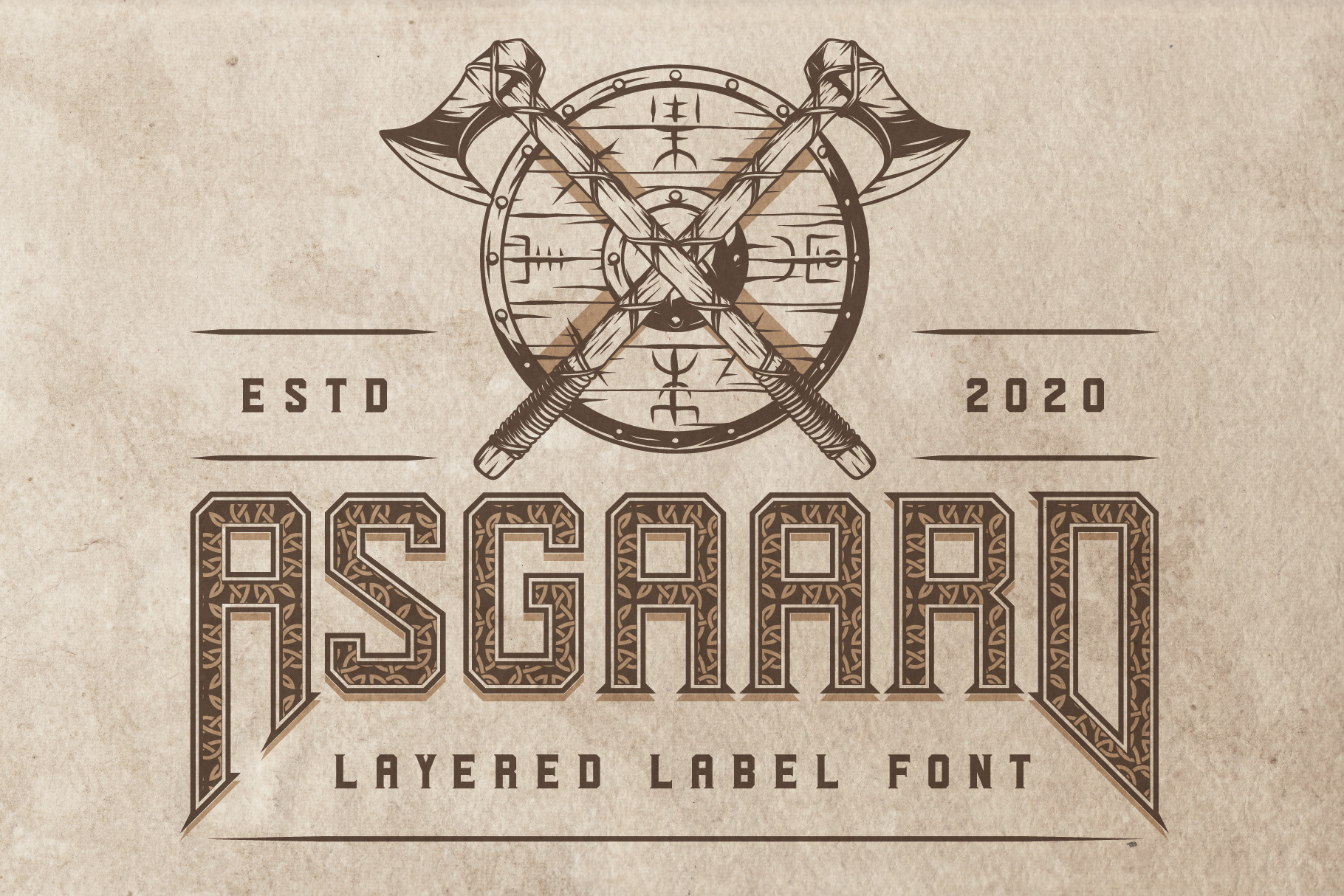
Asgaard layered label font
Introducing a vintage label font named Asgaard. This strong typeface is perfect for lettering on vintage style posters, t-shirts, greeting cards, logo etc. This set contains also bonus: 8 t-shirt designs on Vikings theme.
- A lot of punctuation and multilingual symbols. All set you can see at the preview.
- All of capital letters (including multilingual) have alternates.